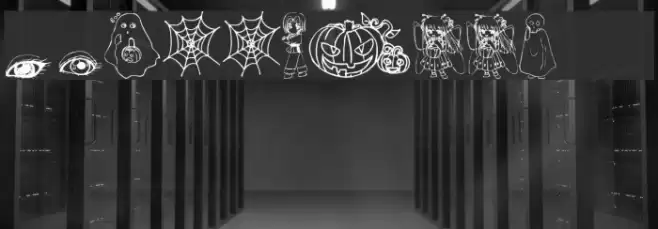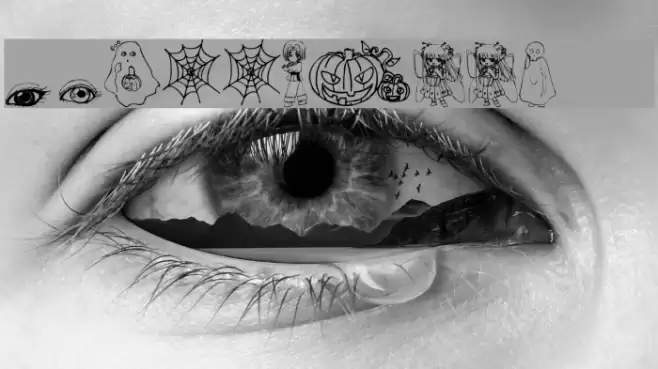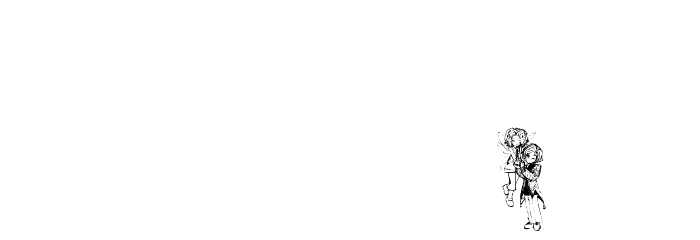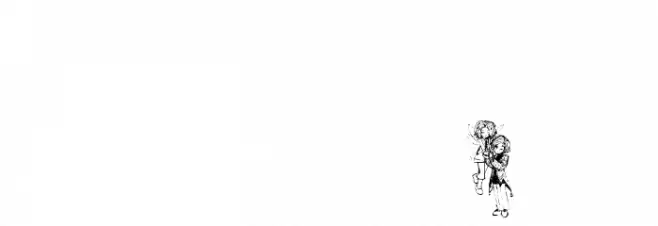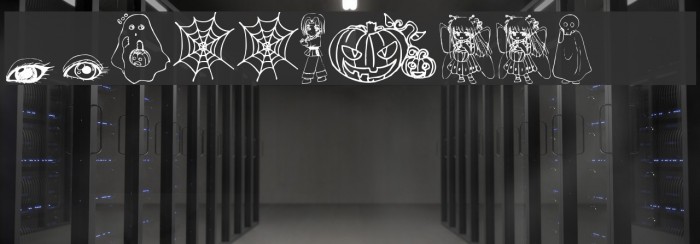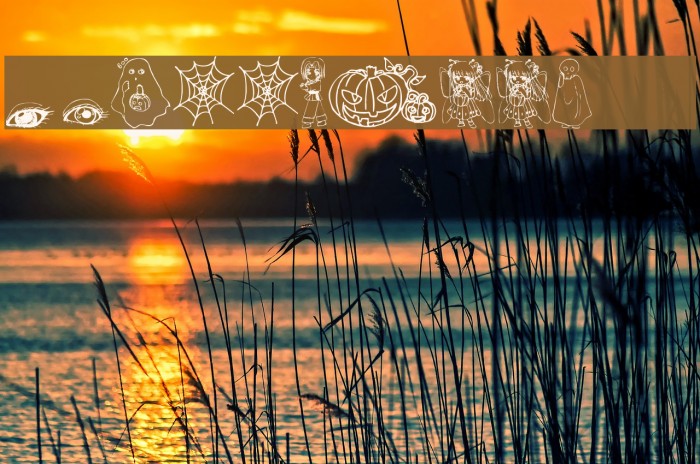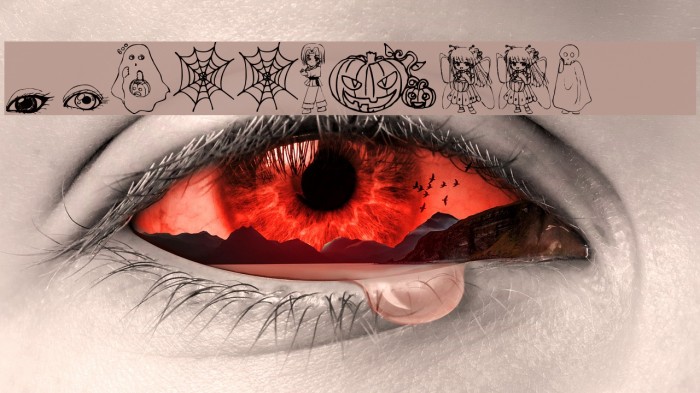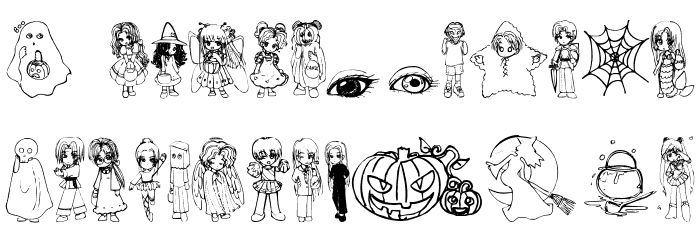
halloween2001 Font
halloween2001 Description
This is a decorative and playful font featuring a series of Halloween-themed illustrations. Each character is represented by a unique drawing, including ghosts, witches, pumpkins, and other spooky elements. The style is whimsical and cartoon-like, with a hand-drawn appearance that adds a charming and festive touch. The characters are detailed and expressive, capturing the essence of Halloween with a fun and lighthearted approach. This font is perfect for seasonal projects that require a creative and thematic design.
A whimsical, Halloween-themed decorative font with playful illustrations from Halloween fonts.
- Proposed Projects: Ideal for Halloween party invitations, themed posters, children's books, and festive decorations.
- Use Case: Logos, Headlines, Decorative elements